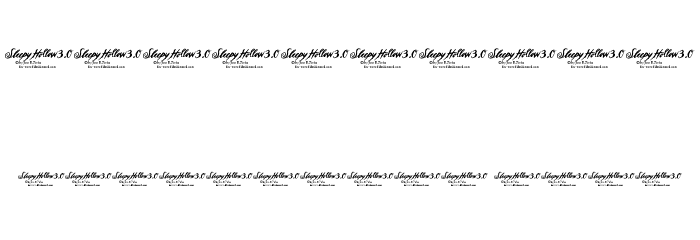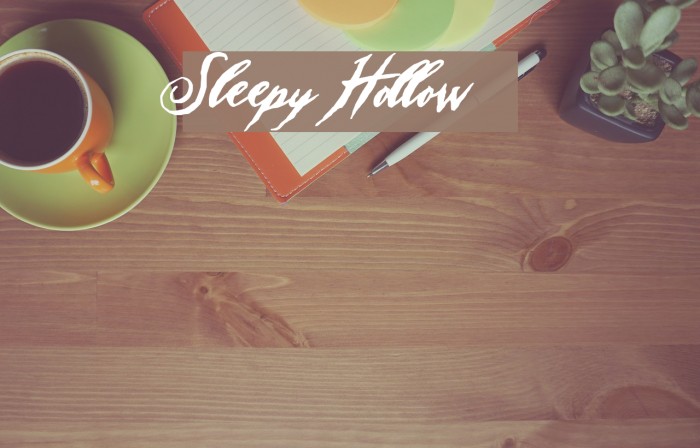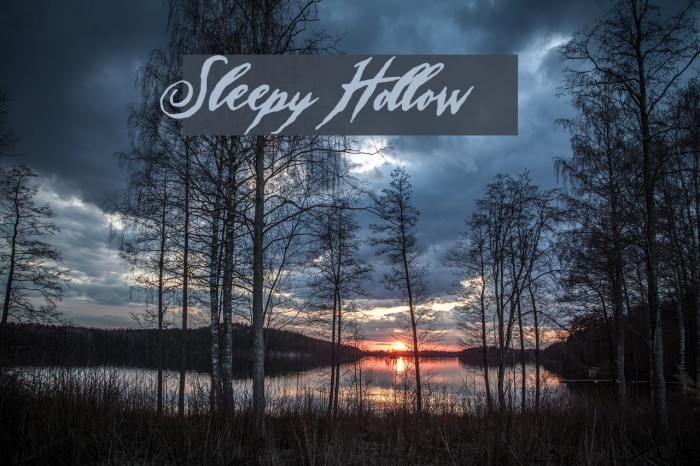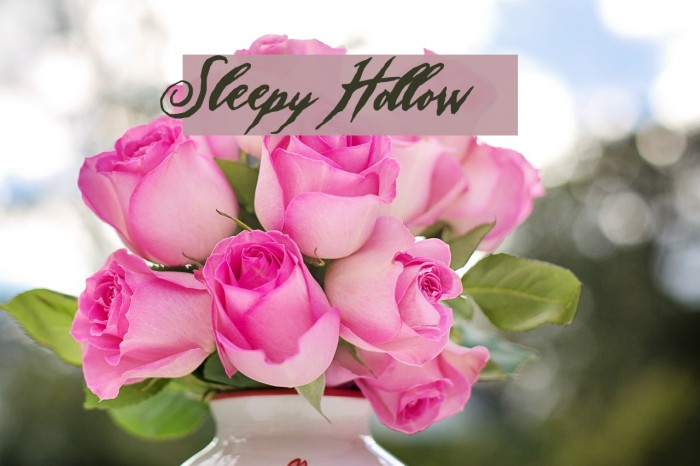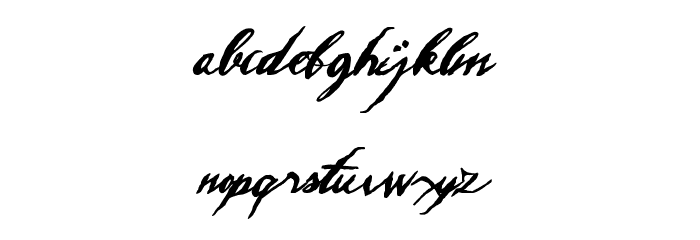
Sleepy Hollow 3.0 Font
✎ Calligraphic
Sleepy Hollow 3.0 Description
This font features a dramatic and expressive style, characterized by sharp, angular strokes and a flowing, cursive-like appearance. The letters are highly stylized, with exaggerated curves and pointed edges that give it a dynamic and somewhat eerie feel. The uppercase letters are bold and commanding, while the lowercase letters maintain a consistent flow, enhancing the overall cohesiveness of the design. The font's unique aesthetic is reminiscent of calligraphy, yet it possesses a modern twist that makes it suitable for creative and artistic projects. Its distinctiveness is further emphasized by the tight character spacing, which adds to its intensity and visual impact.
| Use Case | Logos, Headlines, Posters |
| Proposed Projects | Ideal for horror-themed designs, movie posters, book covers, and Halloween invitations. |